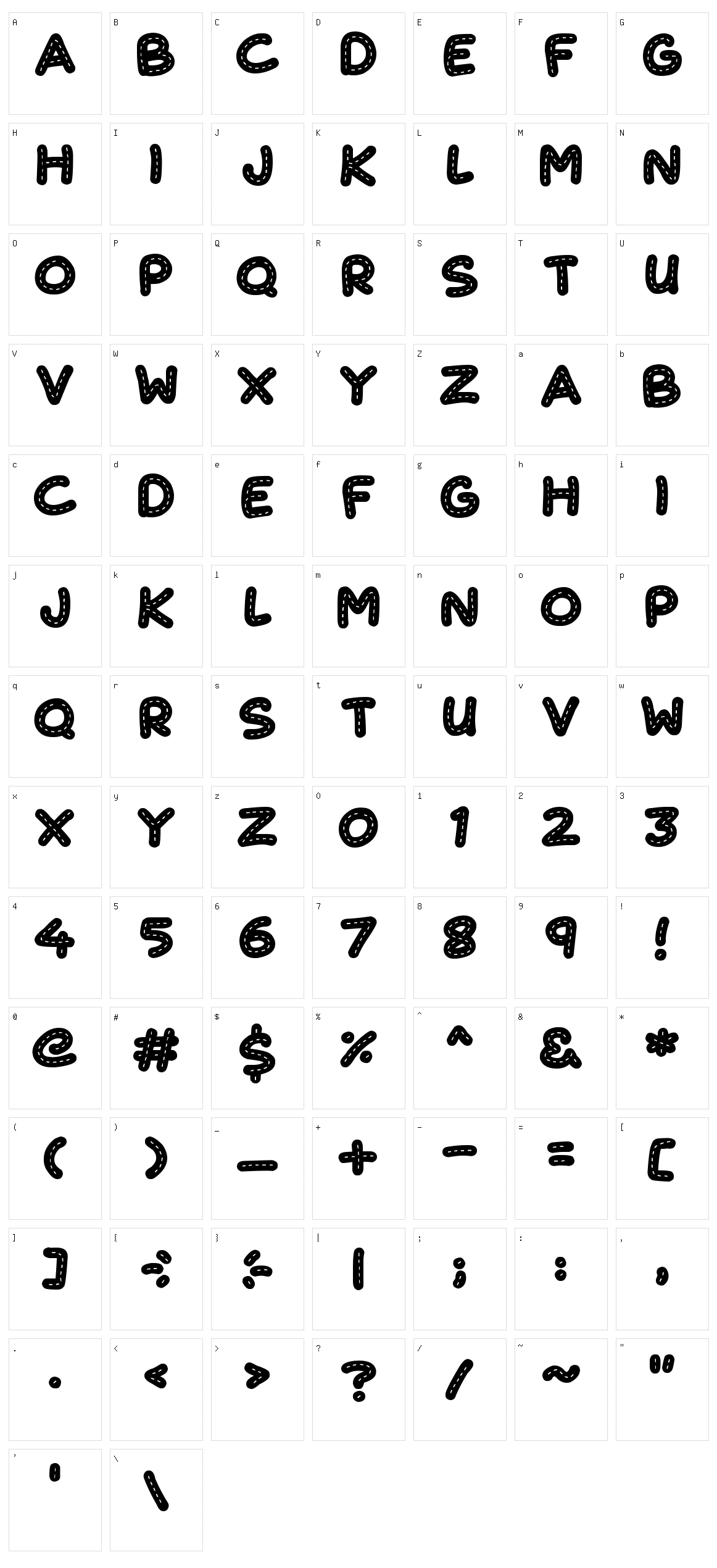
The free font Cute Stitch is carefully designed by Hawtpixel, showcasing a thoughtful balance of creativity and usability and falls under the Cartoon font style. When you download the ZIP file, it contains only 97.07 KB of font files, making it lightweight and quick to download. Please review the license details below to understand permitted usage and distribution rights. If license information is not available, we recommend using this font for personal projects only or contacting the author directly for commercial usage permissions.